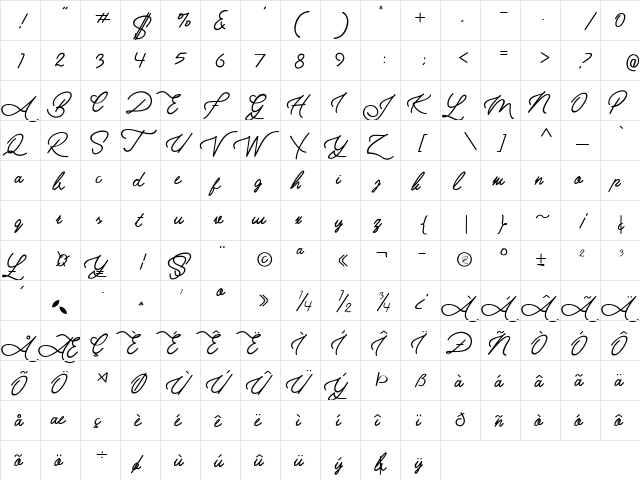
alfath Regular
| Foundry | sigitn nur wicaksono |
Design Context for alfath Typeface
alfath is a composed and adaptable typeface that performs quietly and consistently across a wide range of design contexts.